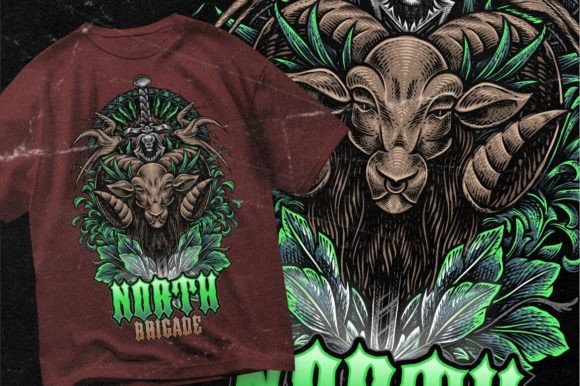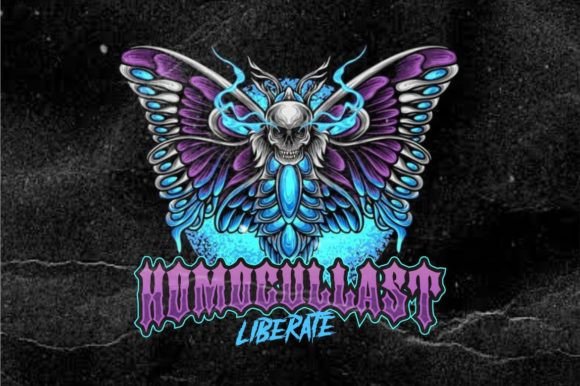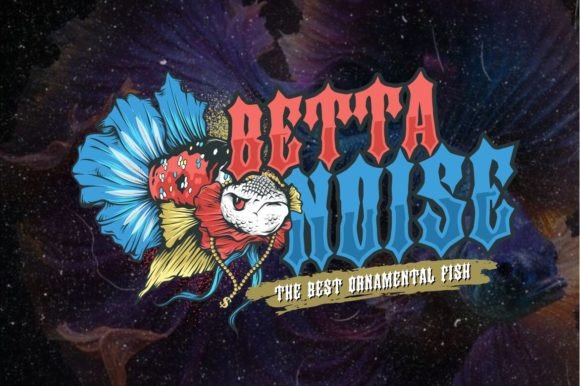
About the Obligart Bold Font
Introducing the Obligart Bold Font, a beautifully crafted typeface designed to elevate your creative projects. Obligart Bold is a typeface inspired in tattoo letters, chicano culture, urban street art. It works well with normal size text, but it works even better for large displays, short words, or even just to incorporate a few or single characters in a design. Suitable for many creative products & tattoo designs, like posters, t-shirt, street wear, logo, signage, headlines, etc. This is what you’ll get : Obligart Bold (ttf & otf)
Obligart Bold’s strong, graphic nature makes it ideal for headlines, short impactful phrases, and logos requiring a bold, rebellious aesthetic. It excels in branding for streetwear, tattoo studios, and projects emphasizing urban culture. Avoid using it for body text or UI elements; its weight and character are unsuitable for extended reading.
This font pairs well with clean sans-serif fonts like Montserrat or Open Sans for contrast and readability in applications where both bold statements and clear information are needed. For a more vintage feel, consider pairing it with a serif like Playfair Display. A script font like Pacifico could add a touch of playful energy, though careful consideration of legibility is vital in such pairings.
Obligart Bold projects a confident, edgy personality. Its inherent boldness and slightly aggressive forms best suit brands that value strong visual impact and a rebellious spirit.
Obligart Bold Font Usage Examples
Obligart Bold Font Example